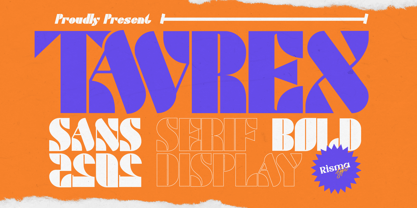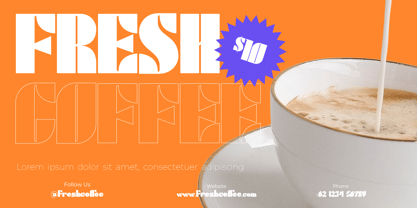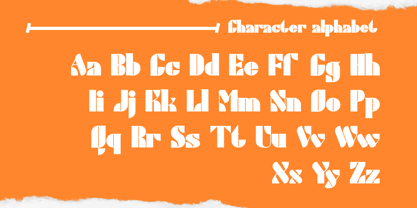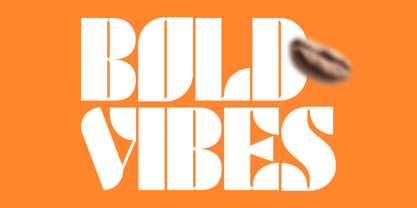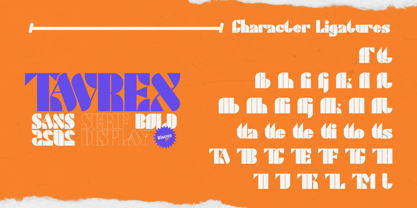
Tavrex
by Risma Type
✨ Tavrex ✨
Bold and Modern Sans Serif Display Font
Tavrex is a sans serif bold display font designed to convey confidence and contemporary style. With its robust forms and clean structure, this font is perfect for making an impact in design projects that require a bold and modern aesthetic, such as:
Branding & Logos: Stand out with a strong and memorable identity.
Posters & Headlines: Deliver messages with power and clarity.
Web Design & UI: Enhance interfaces with a sleek and professional touch.
💎 Make a bold statement with every character of Tavrex.
Transform your designs with strength and modern appeal that captures attention!
Designers: Risma Mulyasari
Foundry: Risma Type